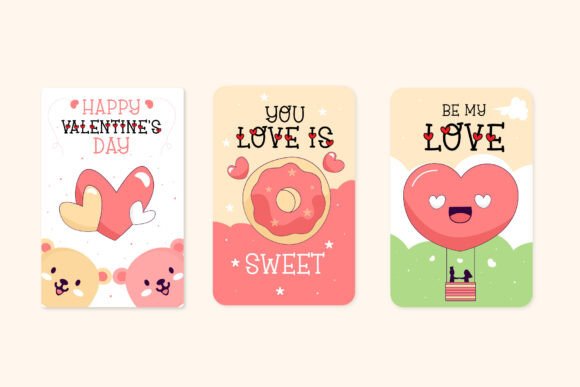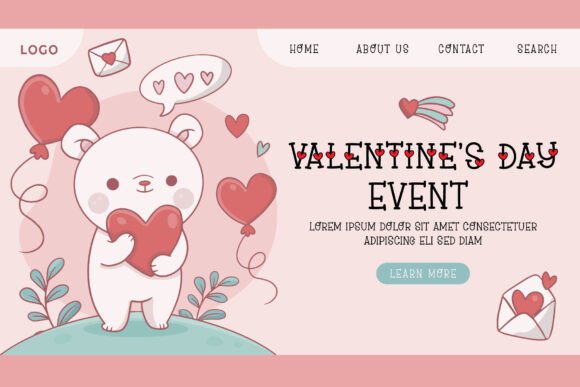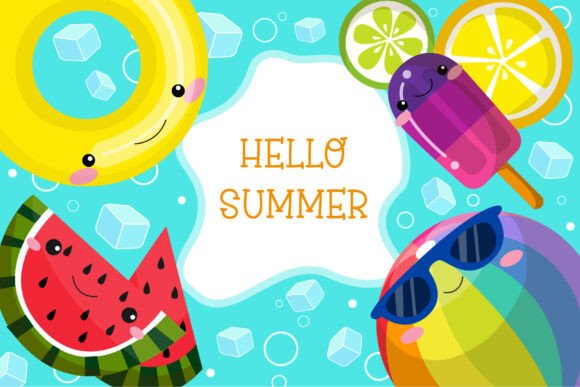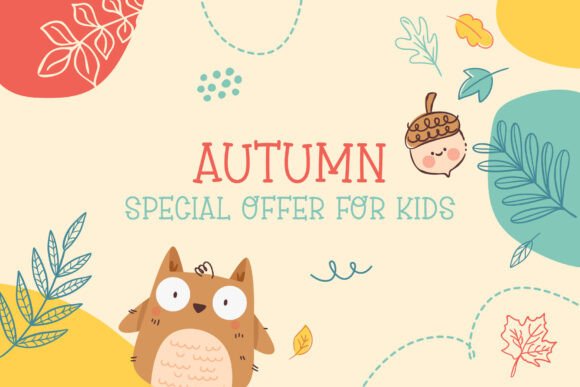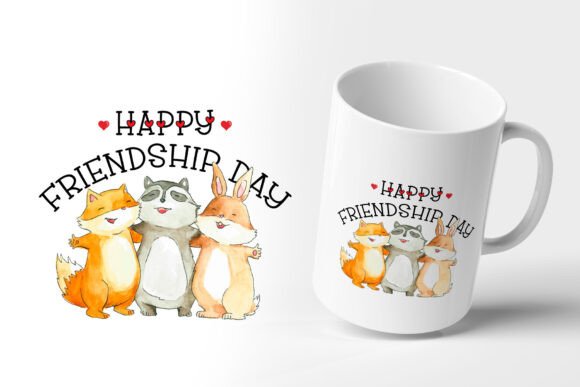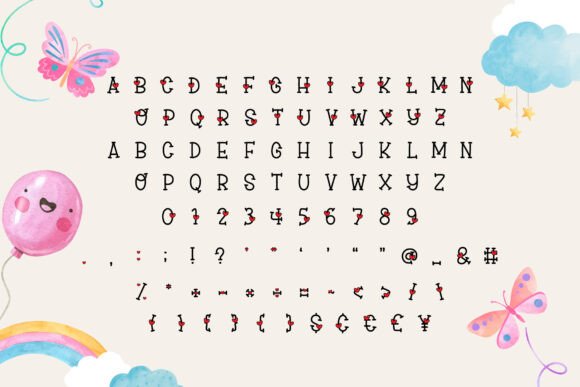
The Sweet Charm of Fox Miniheart Fonts: A Designer’s Delight
Have you ever been in the middle of a design project, and suddenly, you’re struck by a creative block? You’re not alone! I recall a recent experience where I was working on a Valentine’s Day-themed invitation, and I just couldn’t find the perfect font to capture the sweetness and playfulness of the occasion. That’s when I stumbled upon Fox Miniheart Fonts, and let me tell you, it was love at first sight! 💕
Fox Miniheart Fonts are a collection of cute and fun color fonts that can add a touch of whimsy to any design project. Here’s what I love about them:
• ✨ Authentic feel: Fox Miniheart Fonts have a charming, hand-crafted feel that’s perfect for creating invitations, stationery, and social media posts that stand out.
• 💖 Gorgeous color options: With Fox Miniheart Fonts, you can add a pop of color to your designs, making them more engaging and eye-catching.
The Story Behind Fox Miniheart Fonts
Fox Miniheart Fonts were designed with love and care by a talented font designer who wanted to create a collection of fonts that would bring joy and whimsy to designers and crafters. The designer’s inspiration came from a mix of traditional and digital art, with a focus on creating fonts that are both beautiful and functional.
Font Name Fox Miniheart Font
Author Fox7